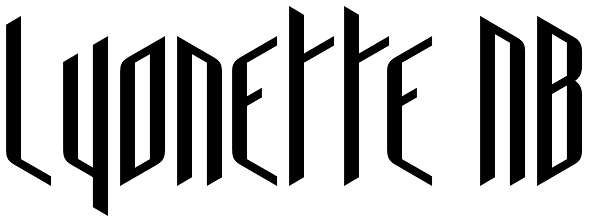
Lyonette NB
These four typefaces, Berlinette NB, Lyonette NB, Marseillette NB and Parisette NB, were designed from the same basic shape, a geometric form that avoids strict horizontals and uses more offbeat triangular shapes. Lyonette is a fanciful type, gentle...